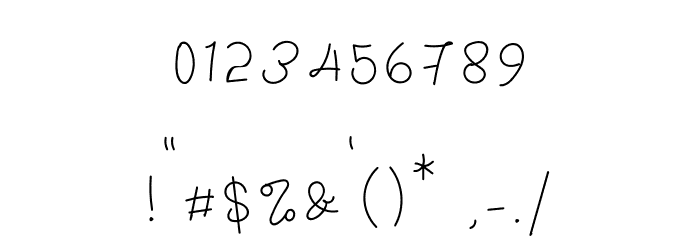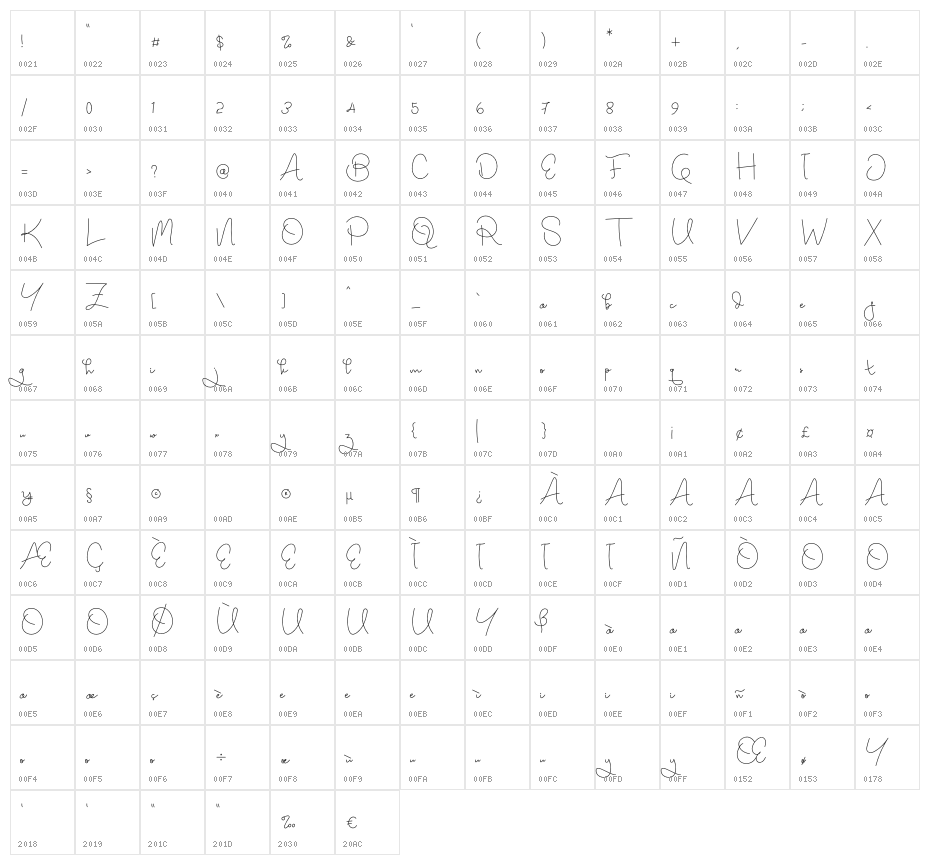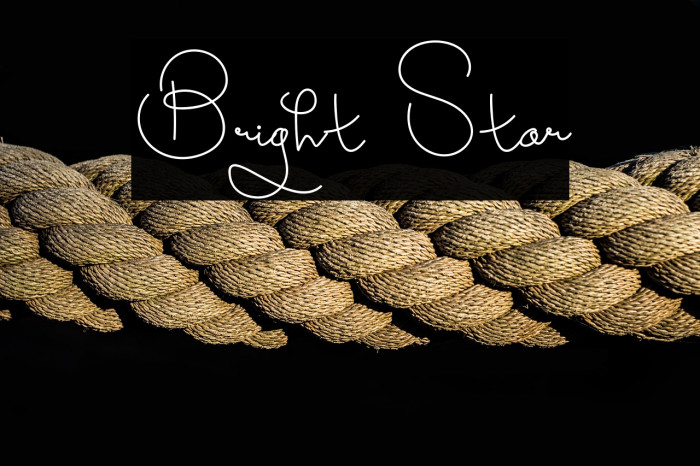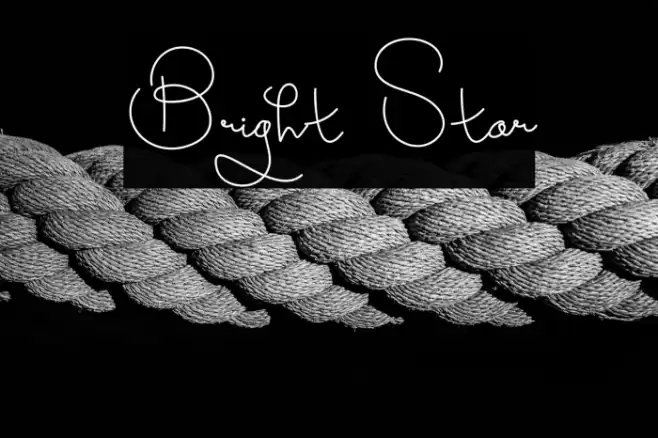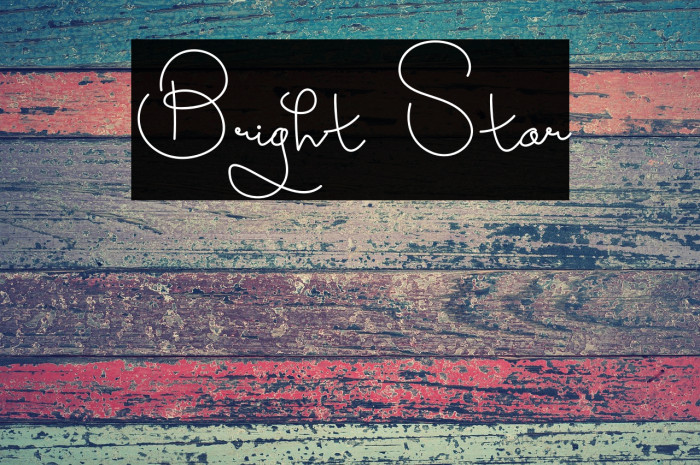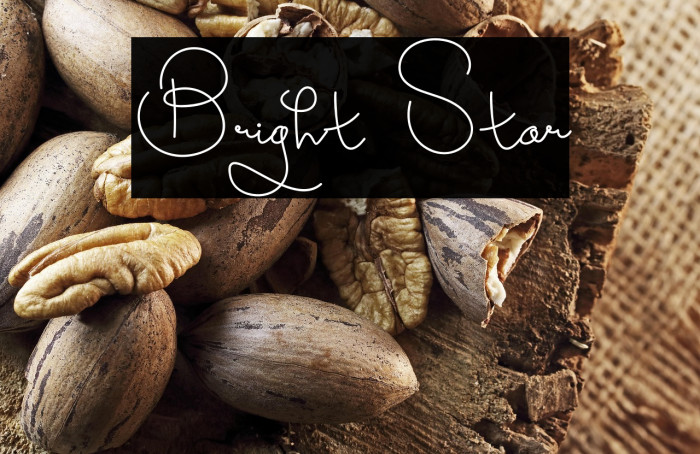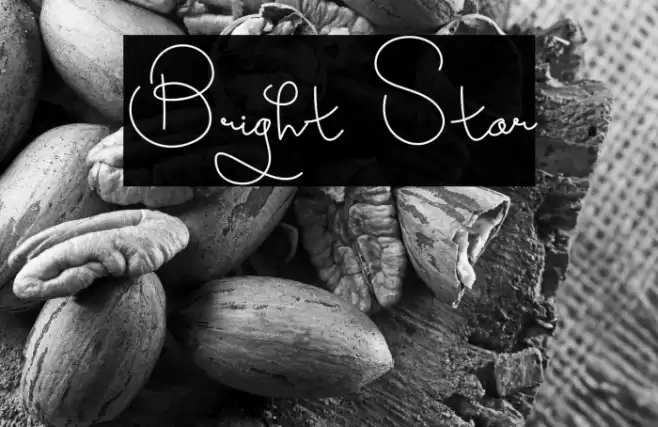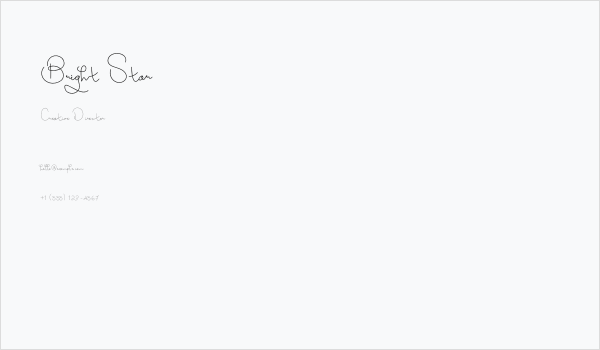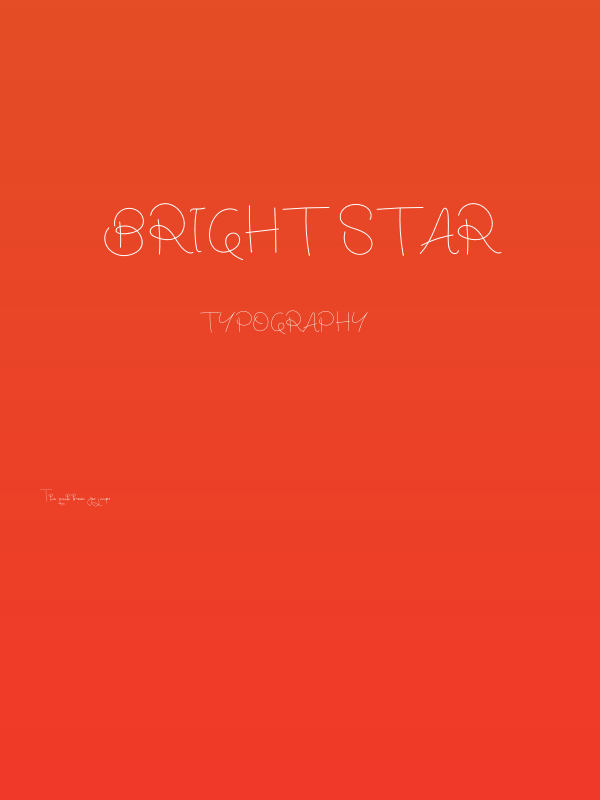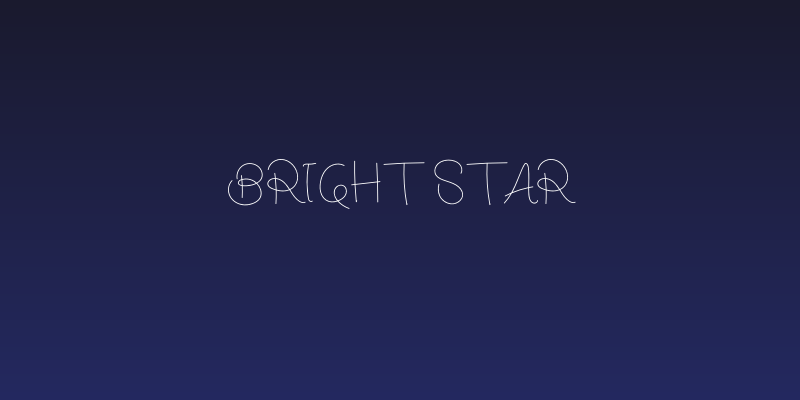
Bright Star Font
Bright Star Description
This font features a whimsical and elegant script style with a hand-drawn appearance. The uppercase letters are characterized by their tall, slender forms and playful loops, creating a sense of movement and fluidity. The lowercase letters maintain this fluidity with intricate curls and swashes, adding a touch of sophistication. Numbers and special characters follow the same style, ensuring consistency throughout. The overall design is delicate and airy, making it suitable for projects that require a personal and artistic touch.
| Proposed Projects | Ideal for wedding invitations, greeting cards, branding, and artistic projects that require a personal touch. |